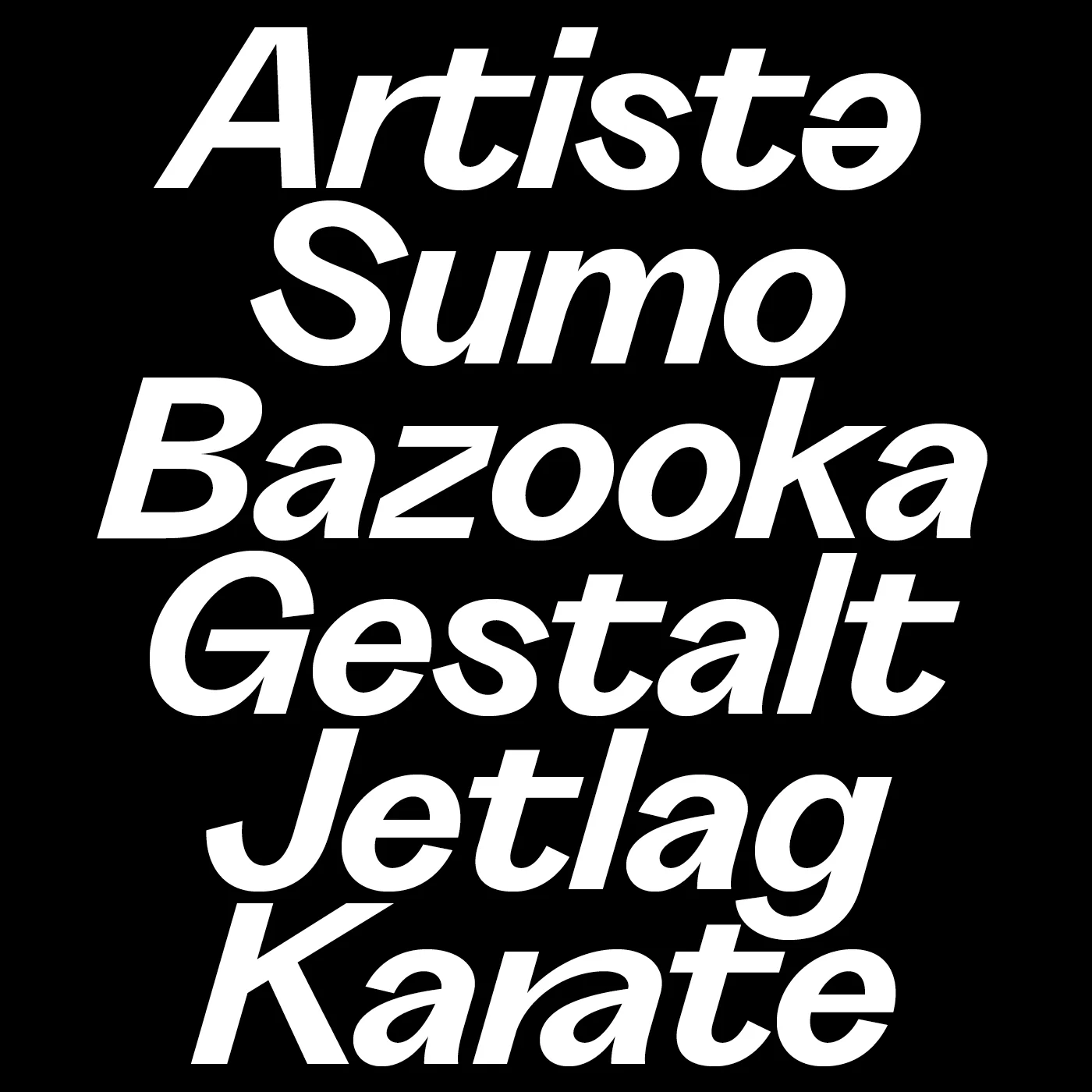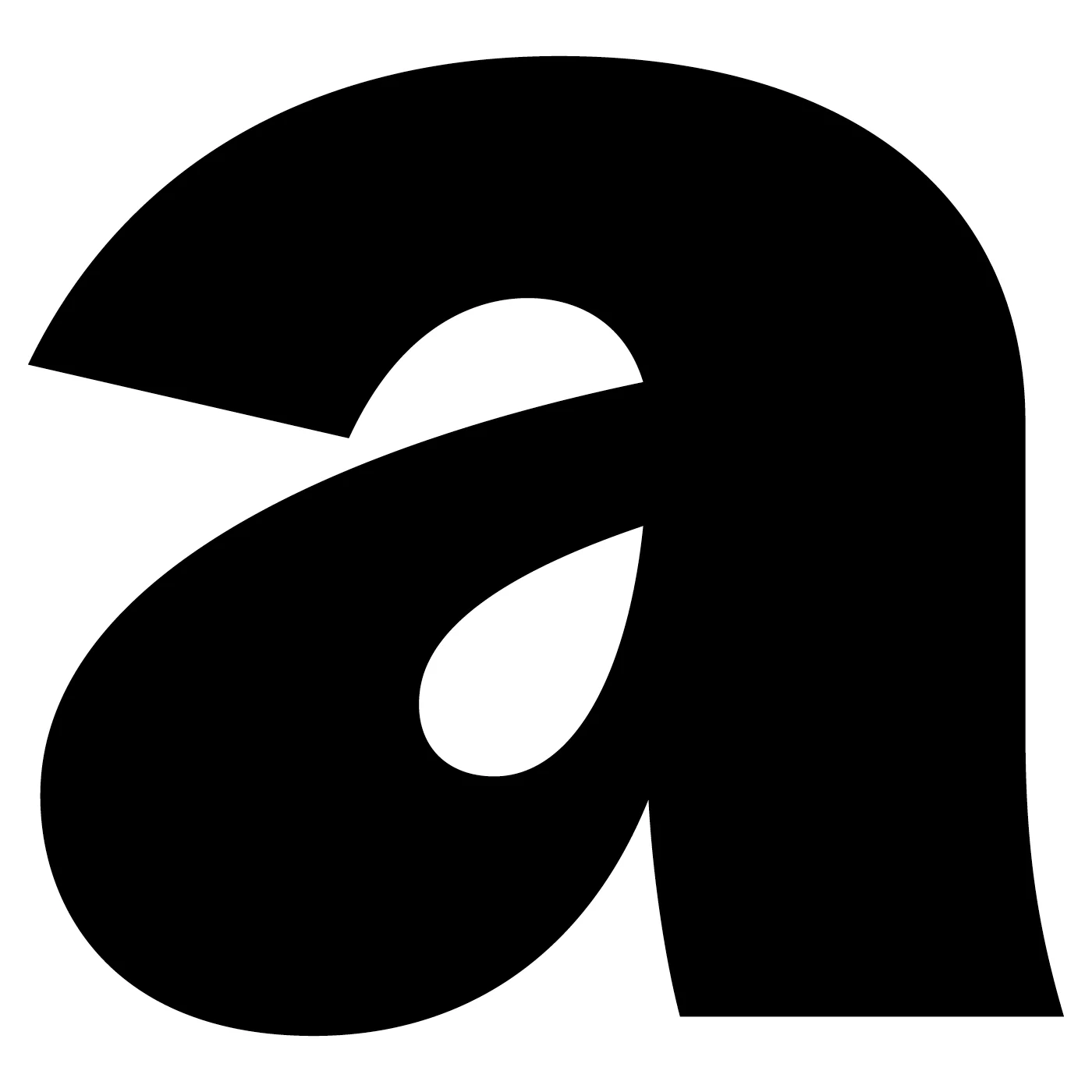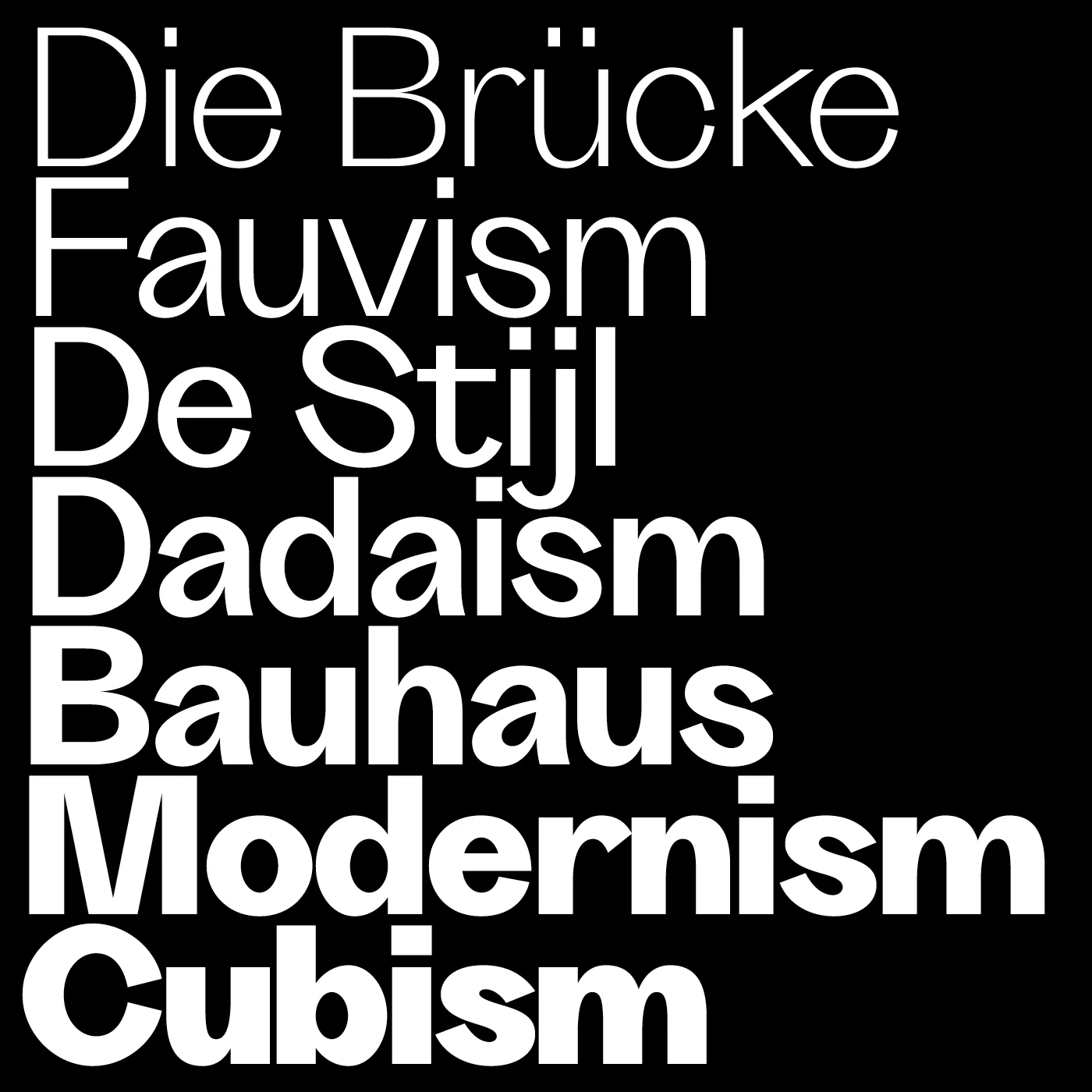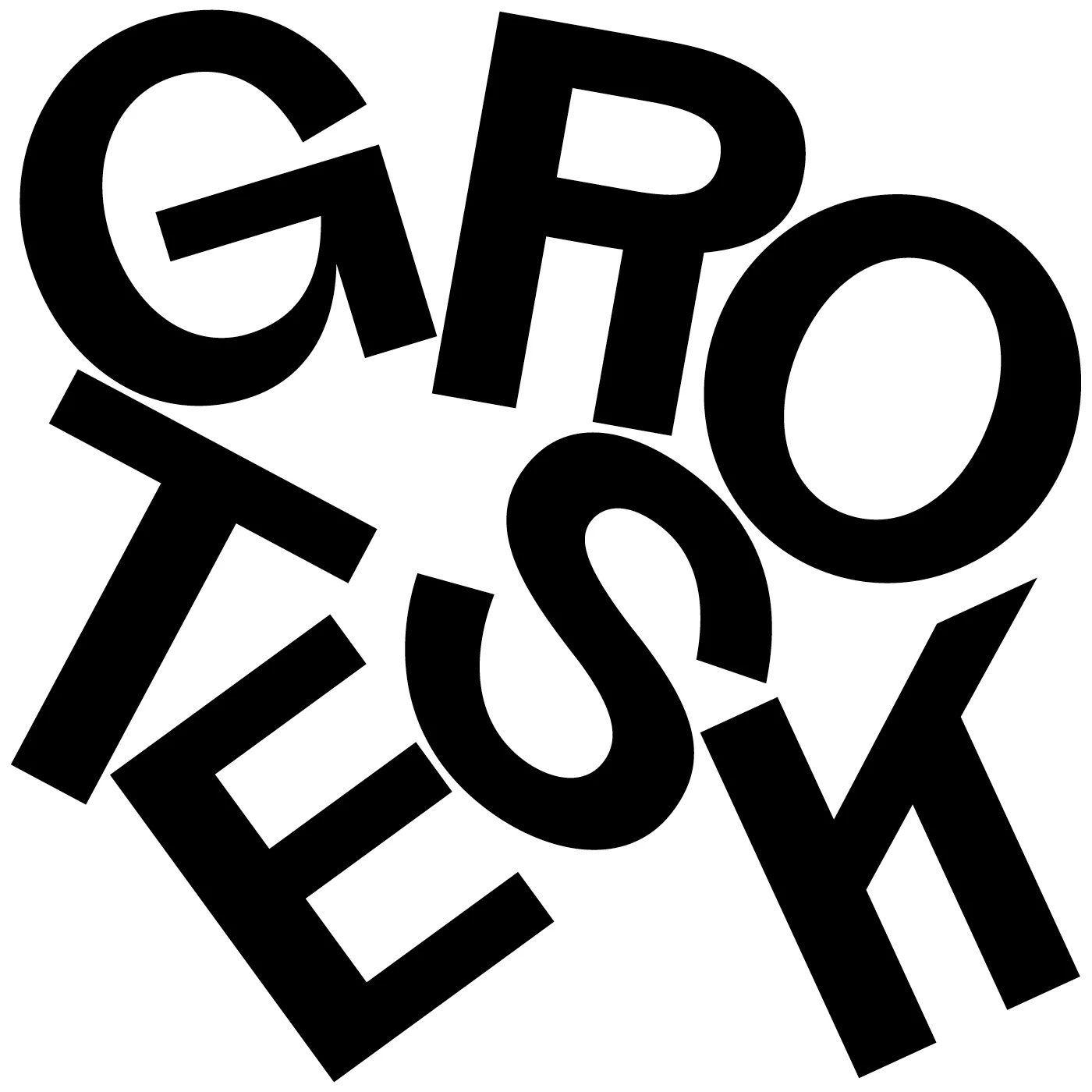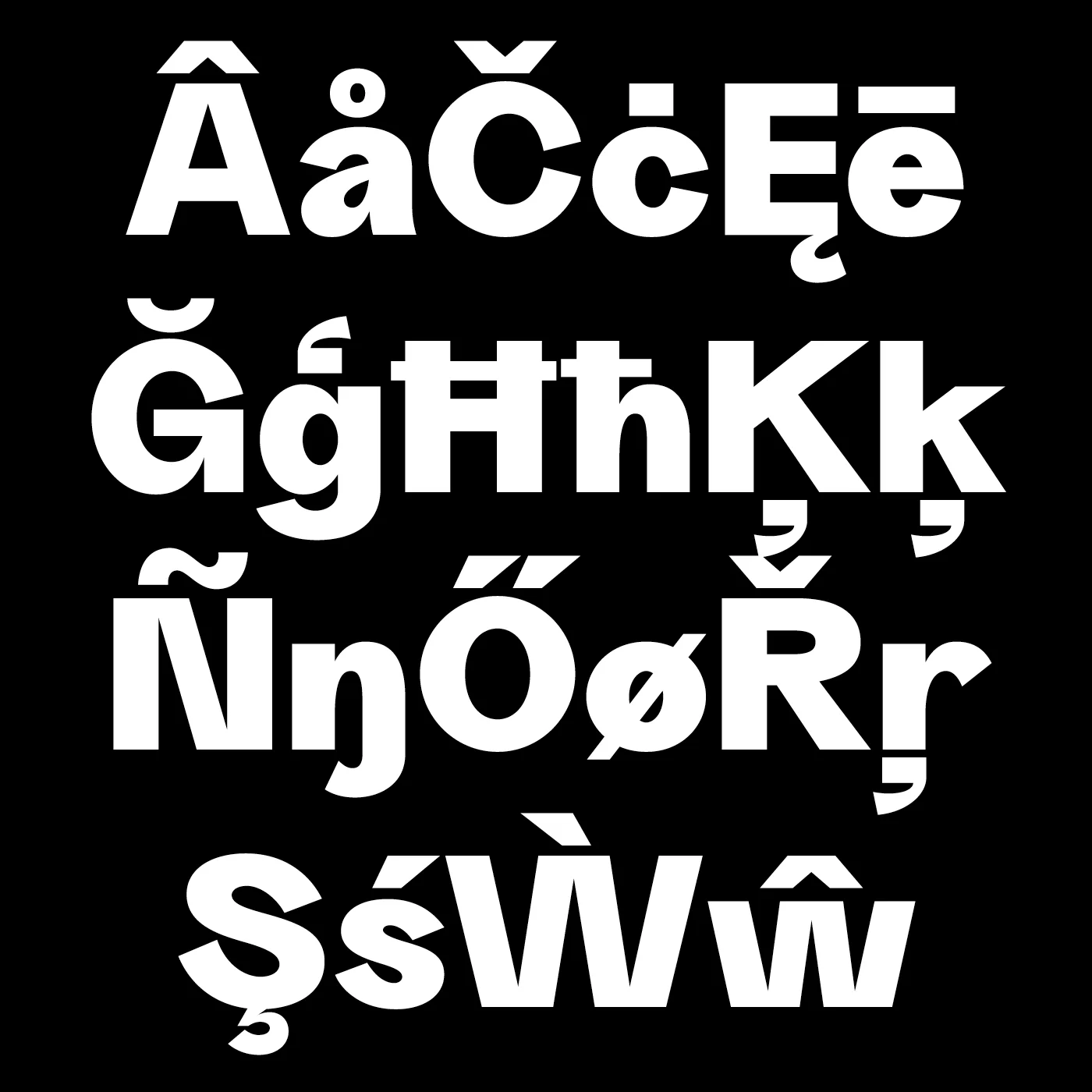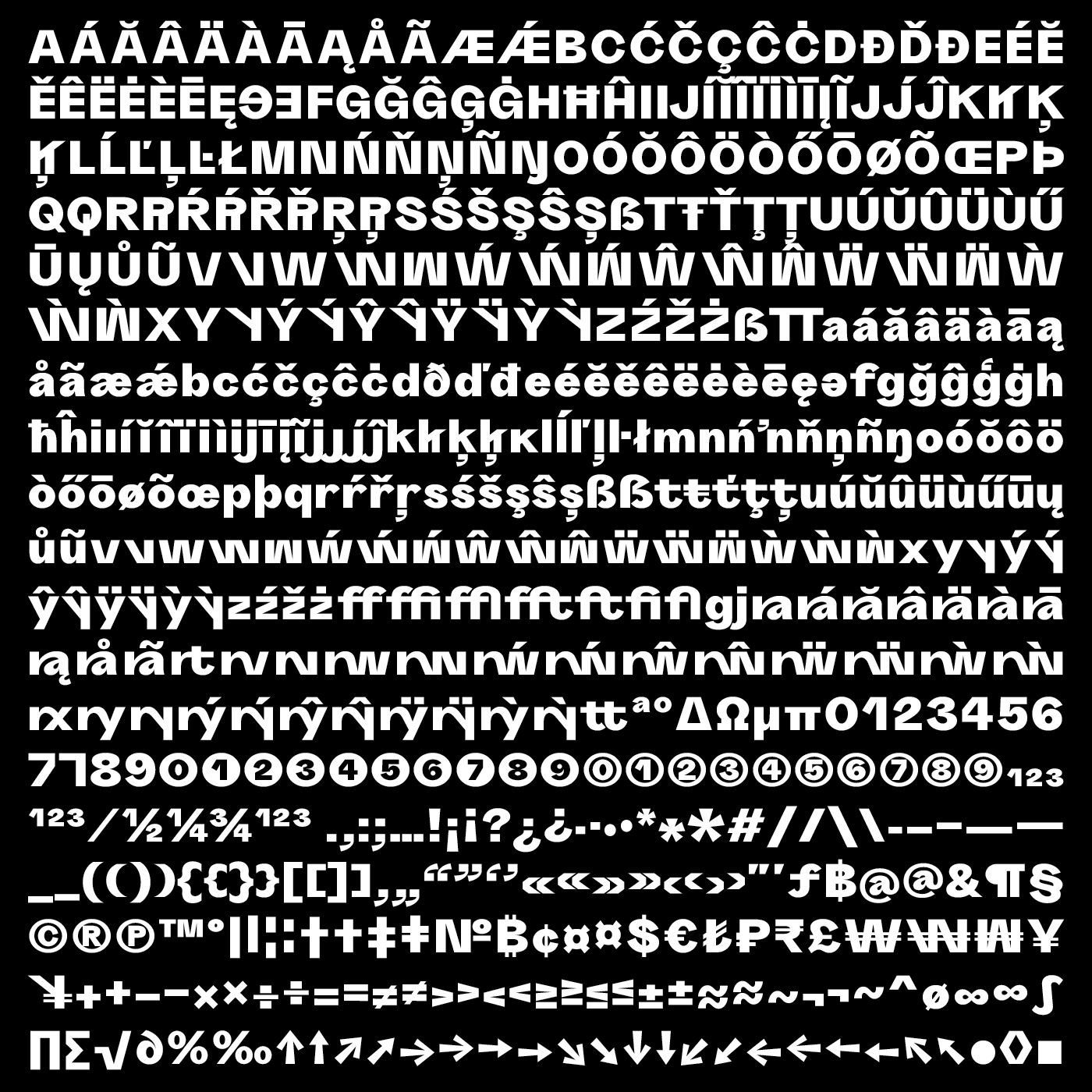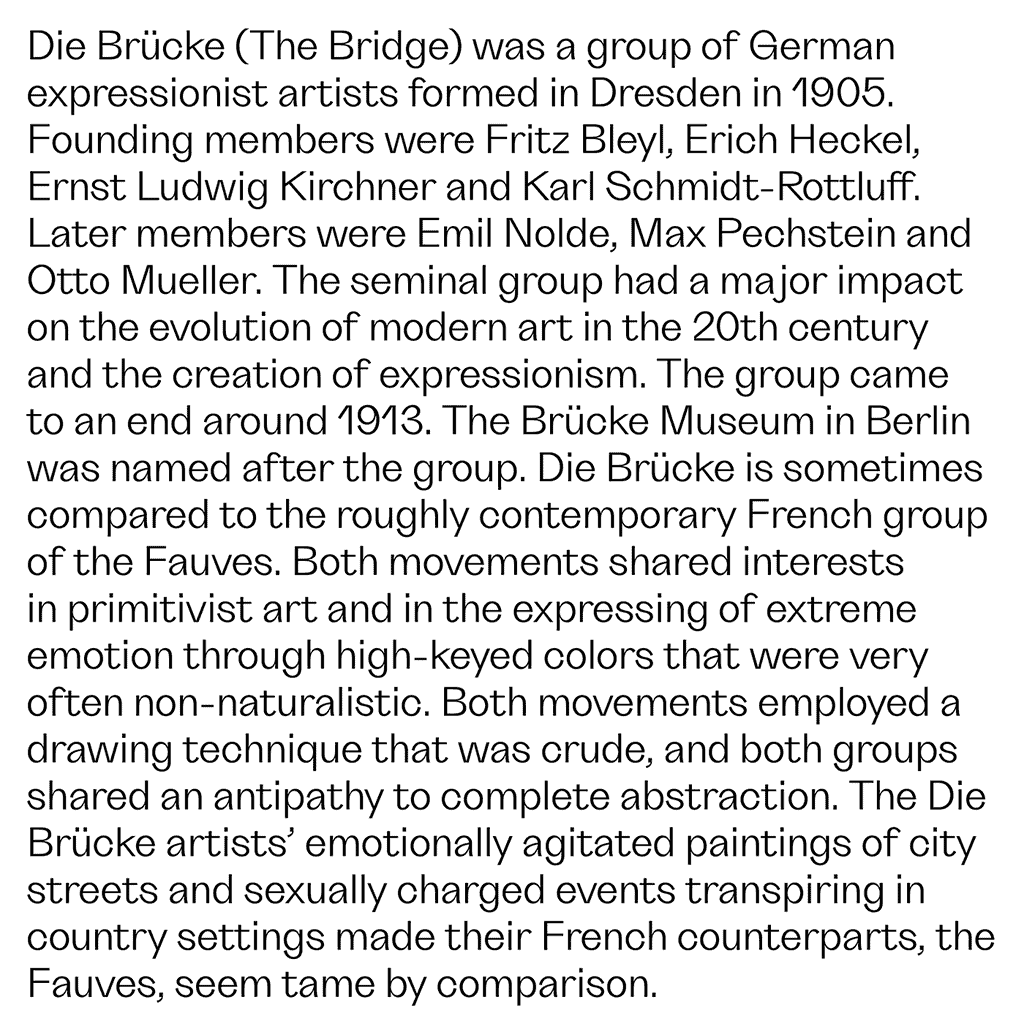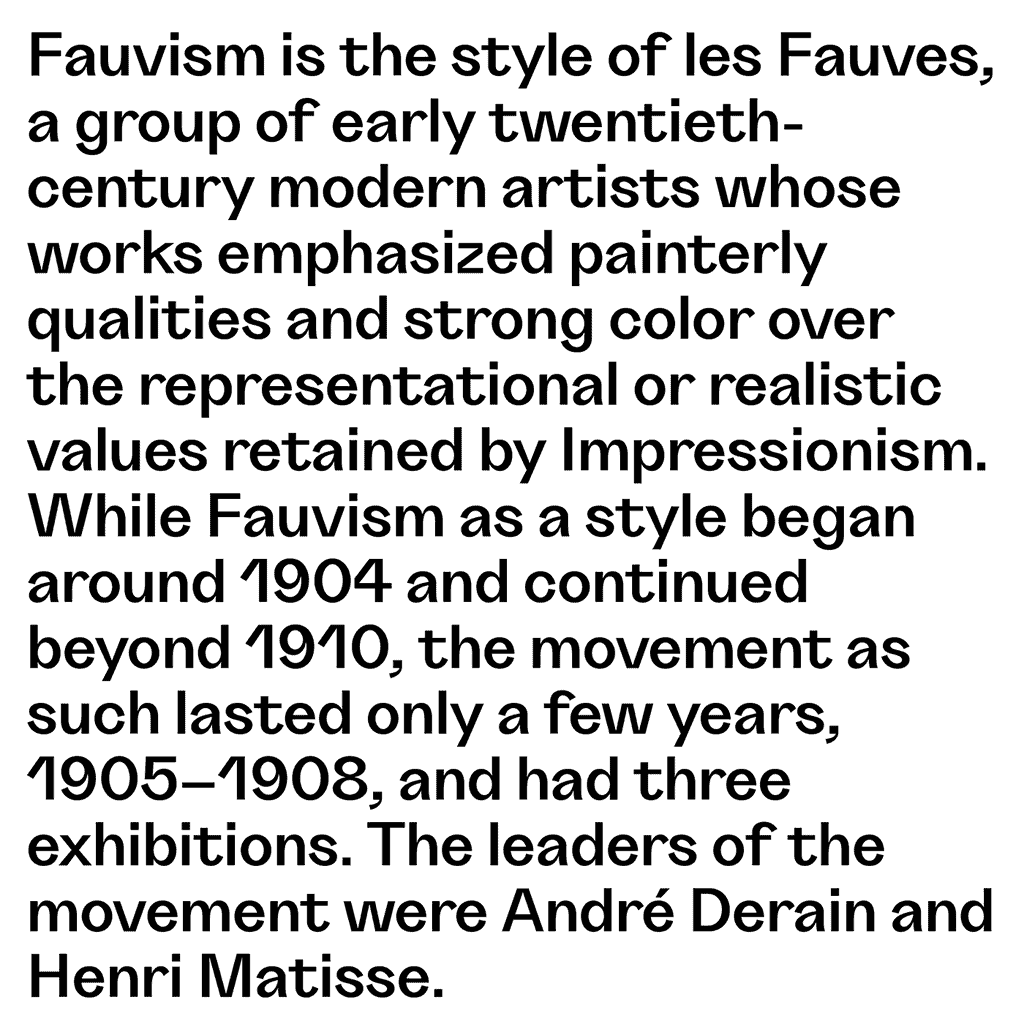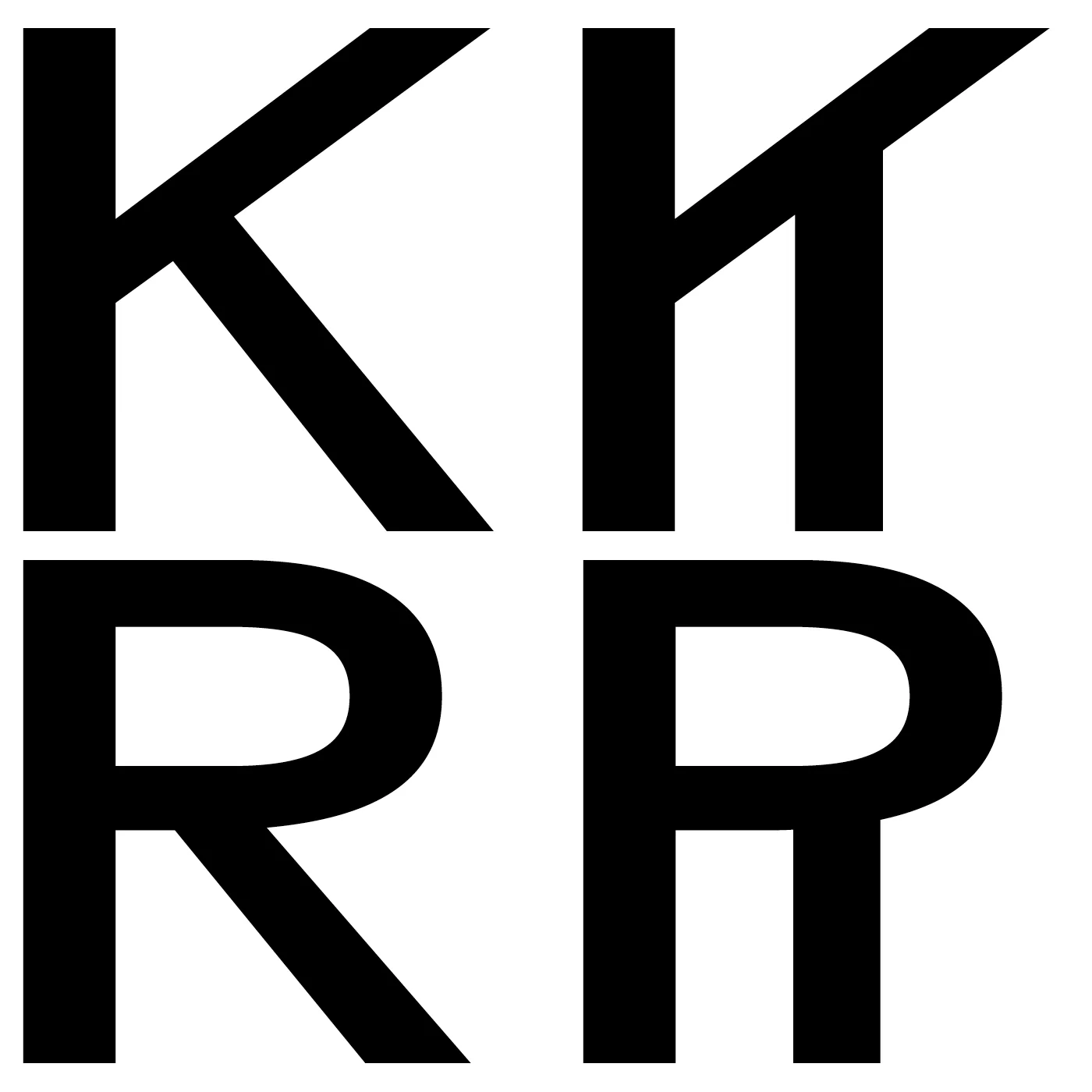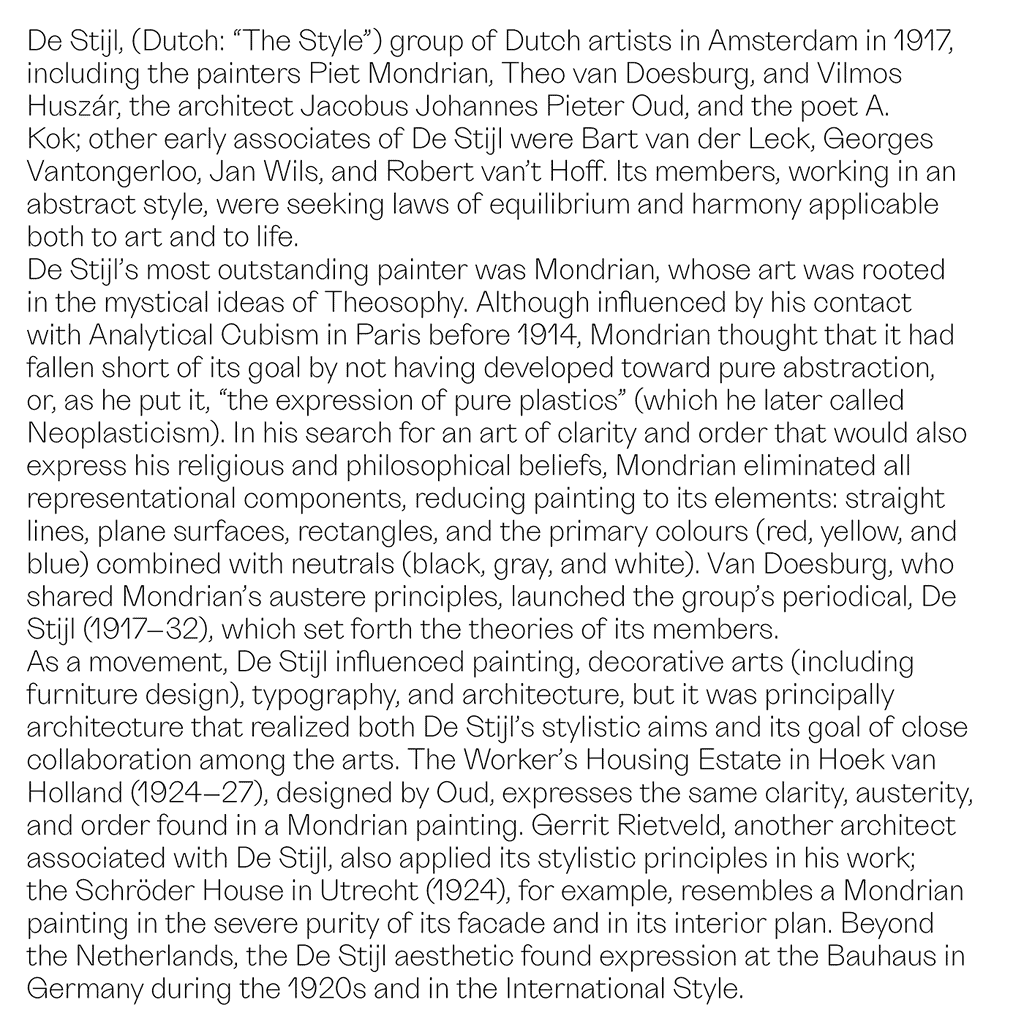
Grotta
Grotta is a bold and contemporary neo-Grotesk typeface family. Characterised by strong geometric accents, sharp contrasts, and tight apertures, Grotta exudes a dynamic and energetic feel.
This authentic and original typeface captures the essence of shifting contemporary aesthetics, reflecting our constant state of evolution and flux. Grotta's design embodies vitality and movement while maintaining a clean and clear-cut presence.
Ideal for modern editorial layouts, impactful branding, and digital interfaces, Grotta offers versatility across a range of applications.
Grotta is a bold and contemporary neo-Grotesk typeface family. Characterised by strong geometric accents, sharp contrasts, and tight apertures, Grotta exudes a dynamic and energetic feel.
This authentic and original typeface captures the essence of shifting contemporary aesthetics, reflecting our constant state of evolution and flux. Grotta's design embodies vitality and movement while maintaining a clean and clear-cut presence.
Ideal for modern editorial layouts, impactful branding, and digital interfaces, Grotta offers versatility across a range of applications.